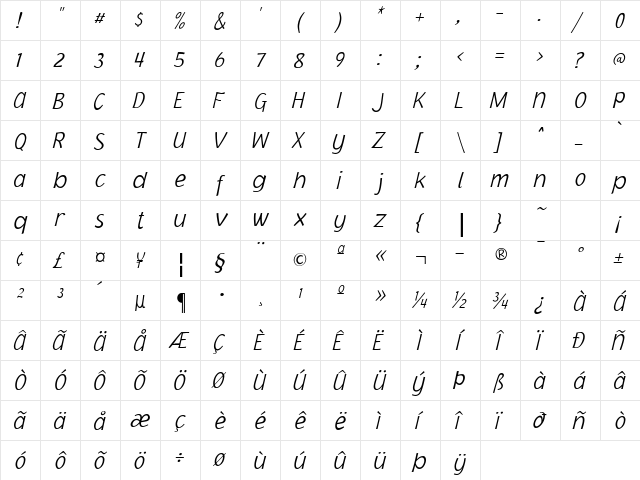
Jacoby ICG XLightItalic Font Preview
Jacoby ICG XLightItalic
Jacoby ICG XLightItalic Font Details
Design Context for Jacoby ICG Typeface
Jacoby ICG is a composed and adaptable typeface that performs quietly and consistently across a wide range of design contexts. The dynamic lean of this cut emphasises speed and emphasis in any layout. Its slender proportions lend an understated elegance to any composition.
Pro Tip: Try Jacoby ICG for annotation and caption copy alongside an upright companion — the contrast in angle creates a dynamic but ordered typographic system.